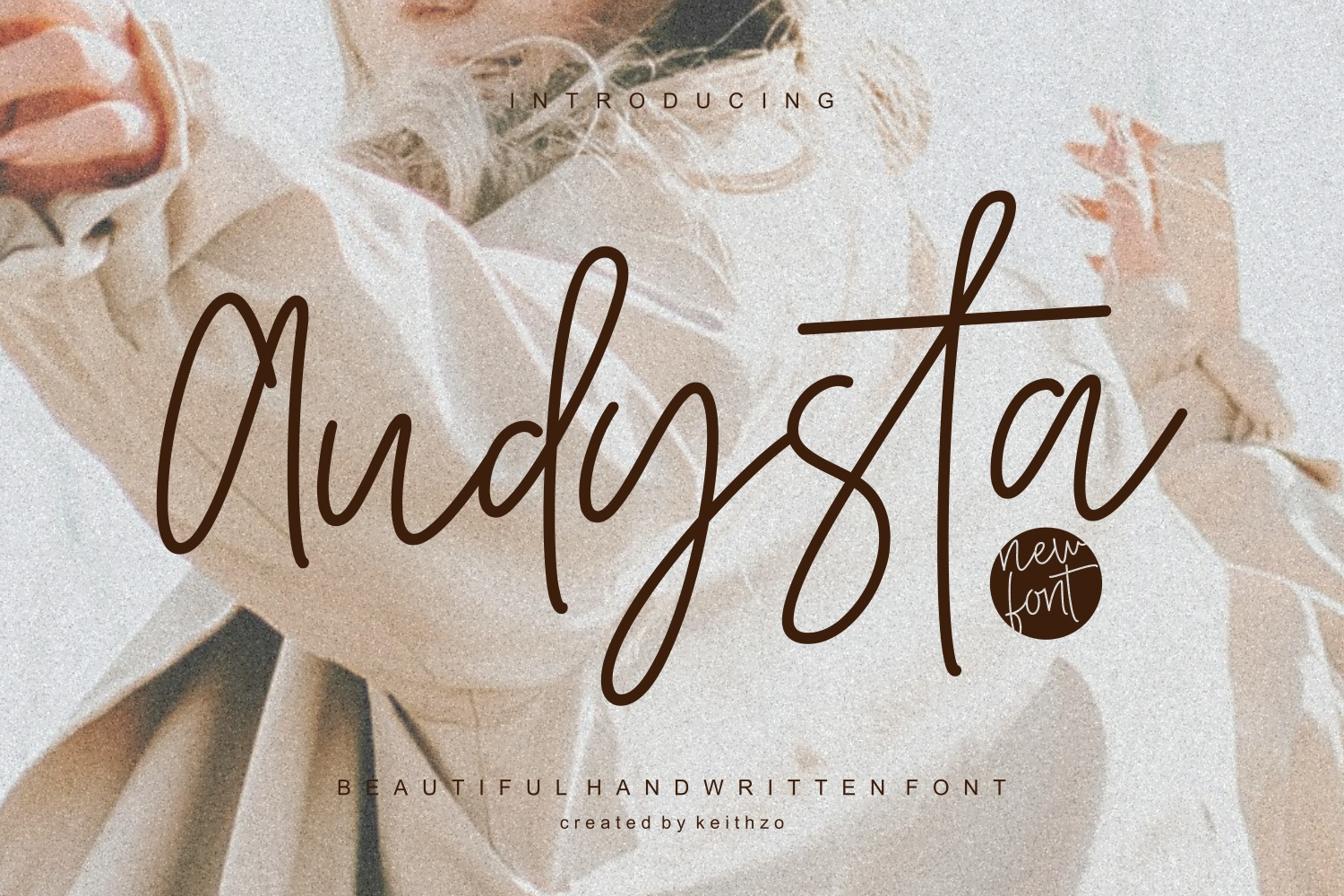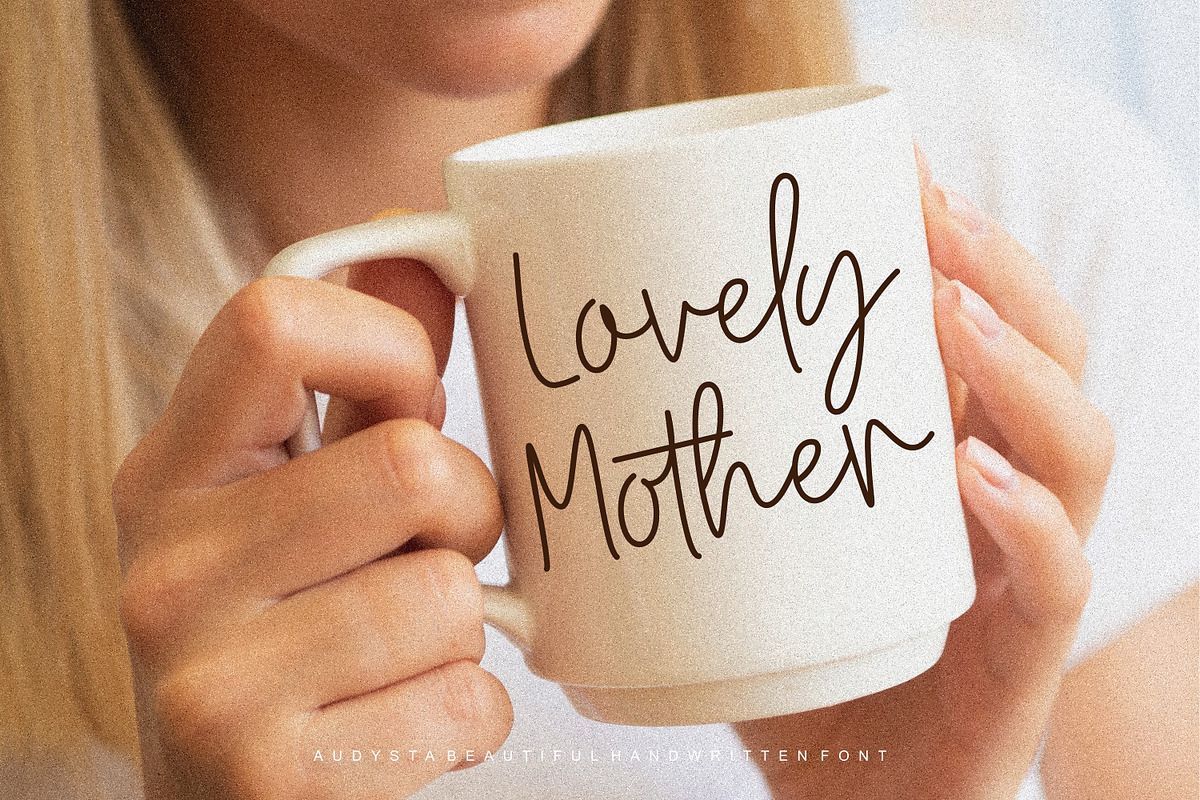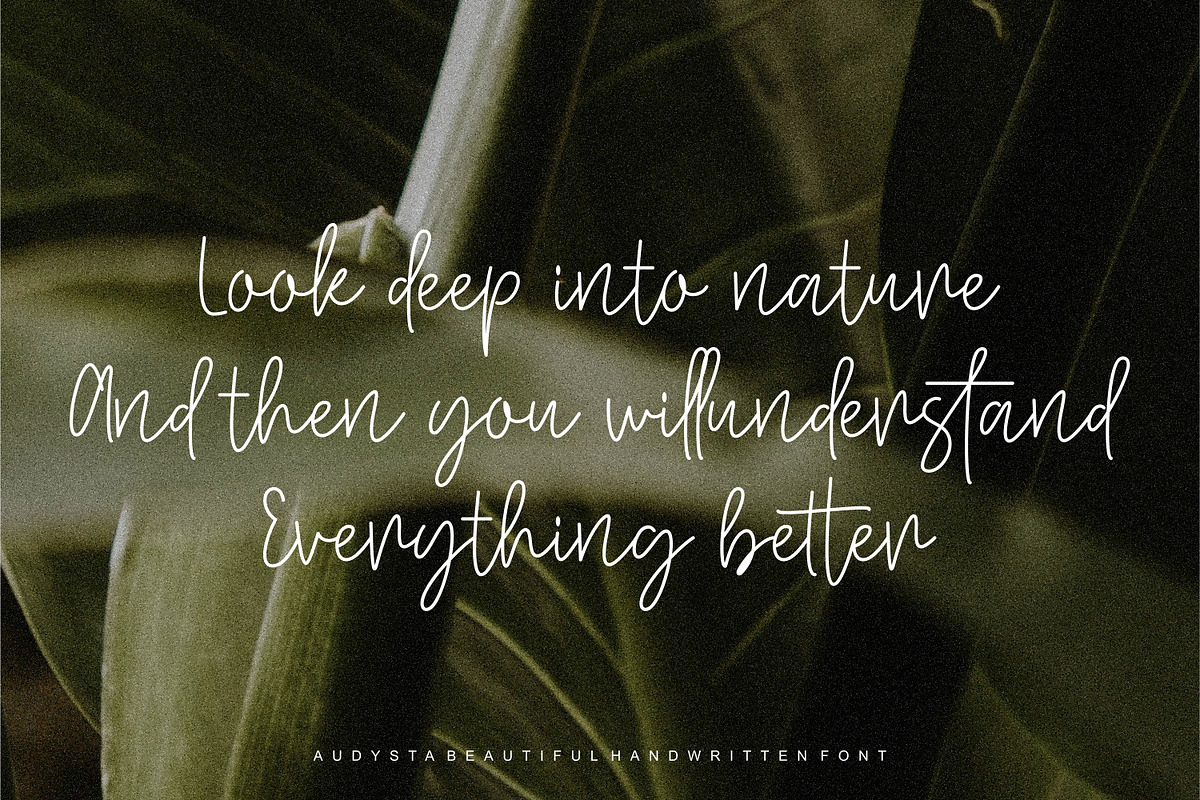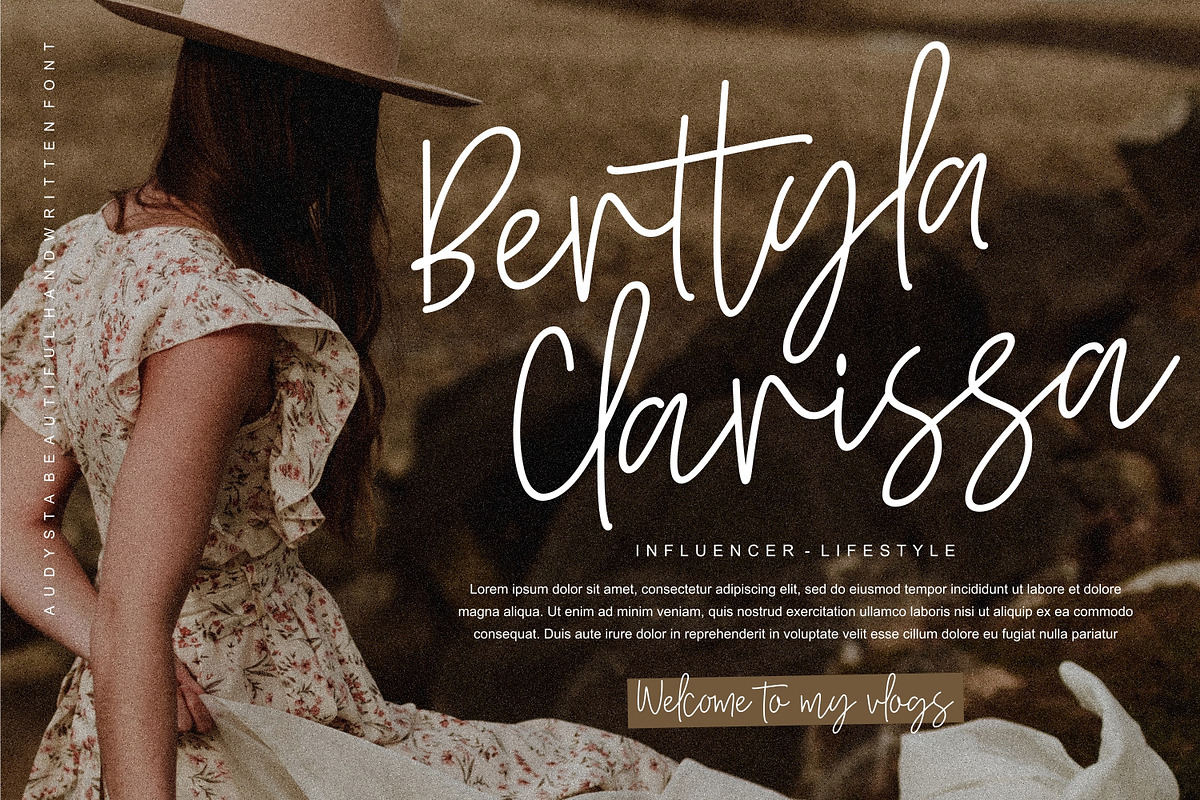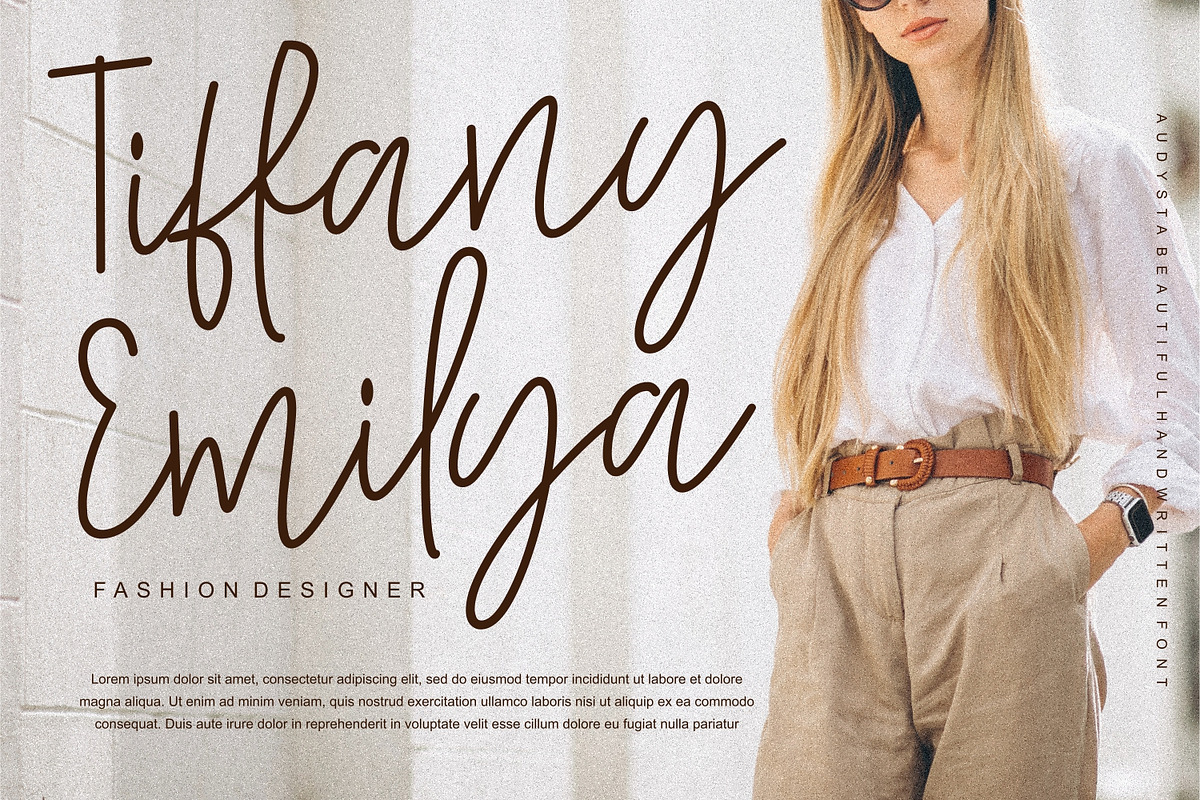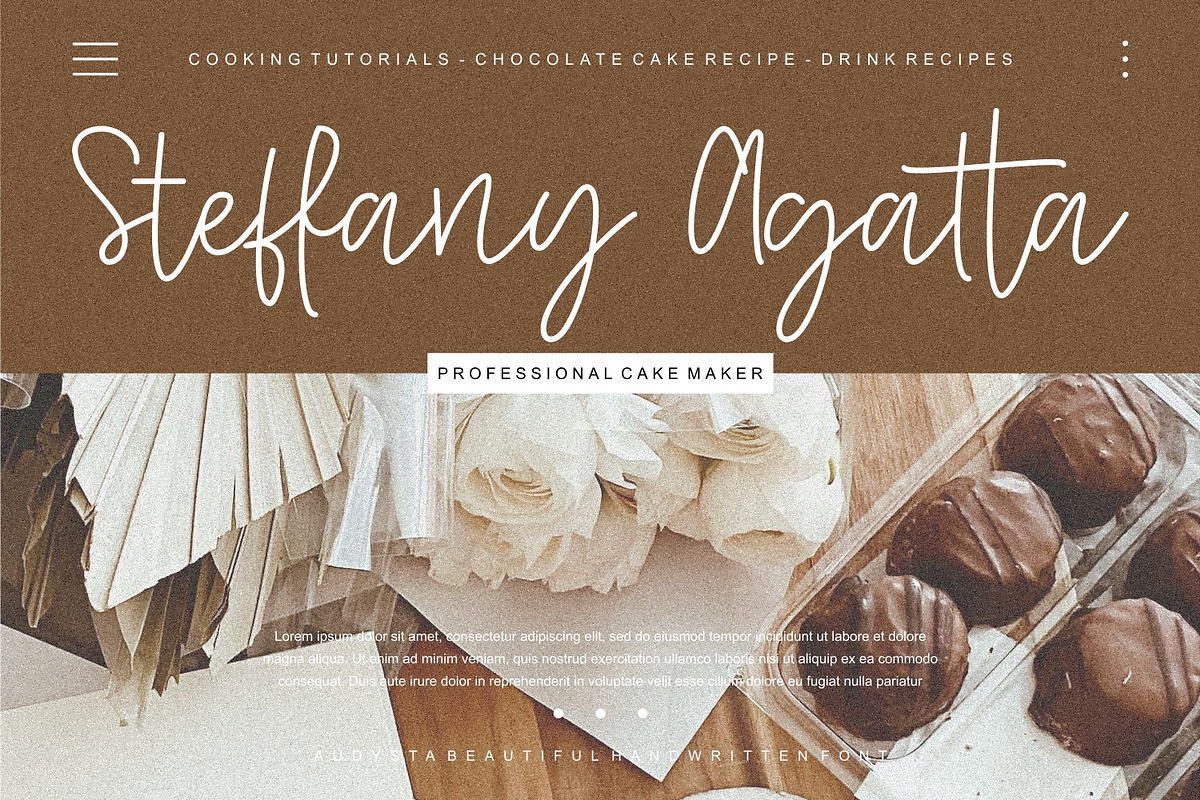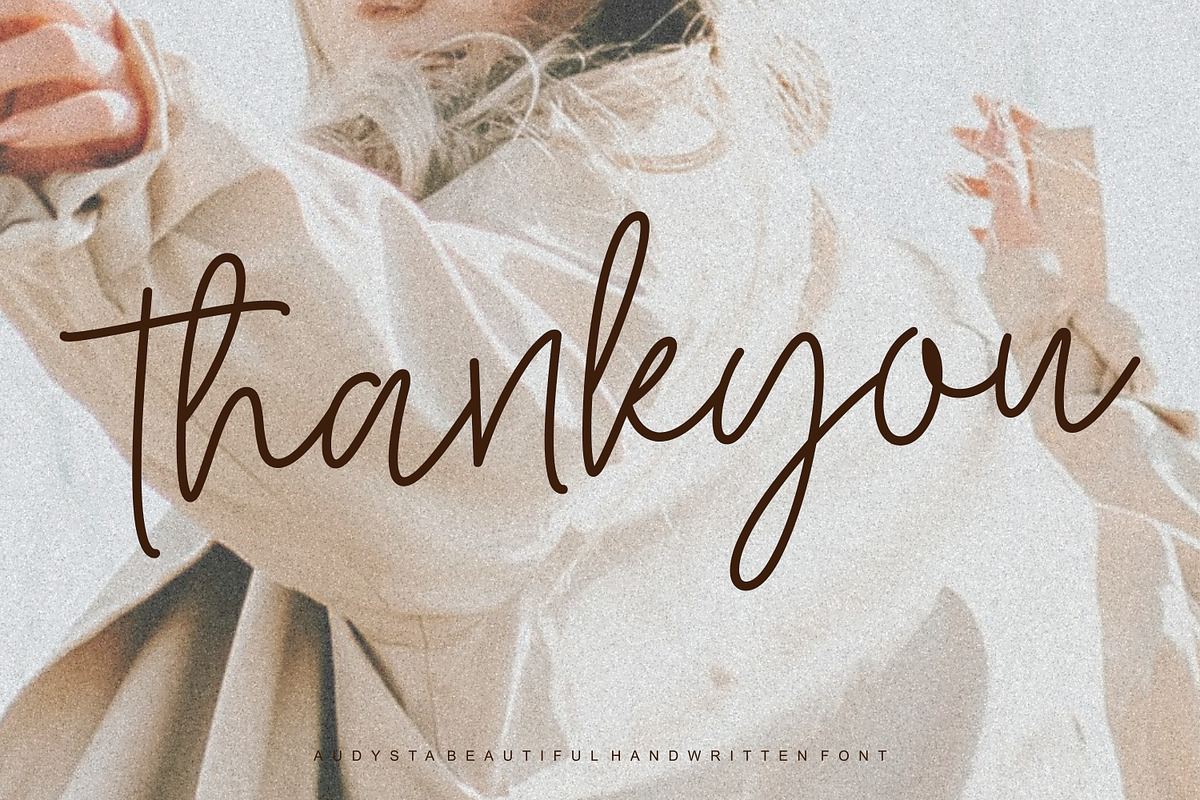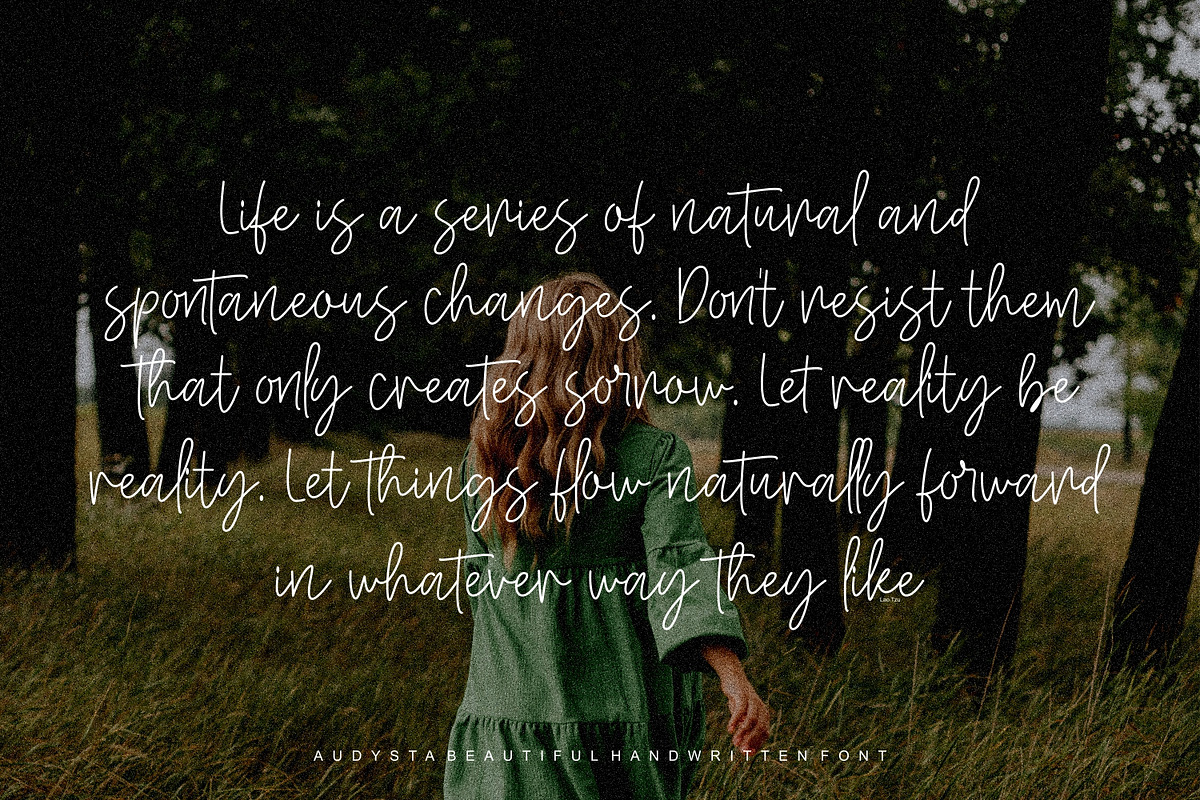
Audysta - Handwritten Font
Audysta Typeface is an elegant and attention-grabbing handwriting font that adds a touch of sophistication to any project. With its bold strokes and stylish curves, this font is perfect for creating stunning designs, from wedding invitations to social media graphics and branding materials. This font is PUA encoded which means you can access all glyphs and swashes effortlessly!
- Stylistic and Ligatures
- Multiple Languages Supported